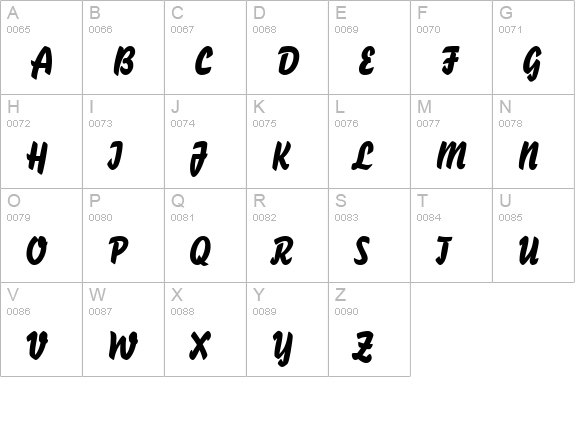
BrushStroke 26 Normal Font Details
BrushStroke 26 Normal is the standard, neutral variant in the BrushStroke typeface family \xE2\x80\x94 well suited to general body text, paragraphs, and standard typographic work.
BrushStroke 26 Normal font is a versatile and stylish typeface that adds a unique and artistic touch to any design project. With its hand-painted brush strokes and elegant curves, this font exudes creativity and charm. Perfect for branding, logos, posters, and more, BrushStroke 26 Normal font is sure to make your designs stand out. The best part? This beautiful font is available for free download at FontsMarket.com. Don't miss out on the opportunity to enhance your projects with the beauty and elegance of BrushStroke 26 Normal font. Download it today and start creating stunning designs that capture attention and leave a lasting impression.